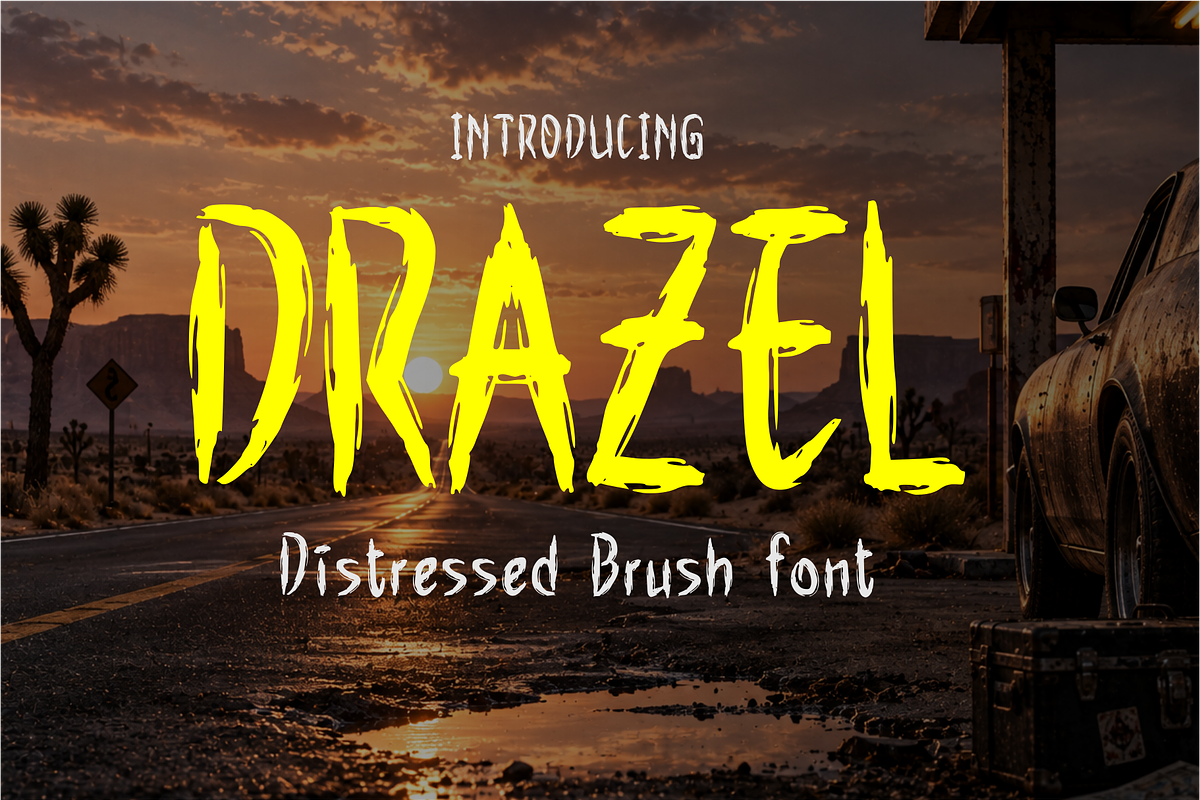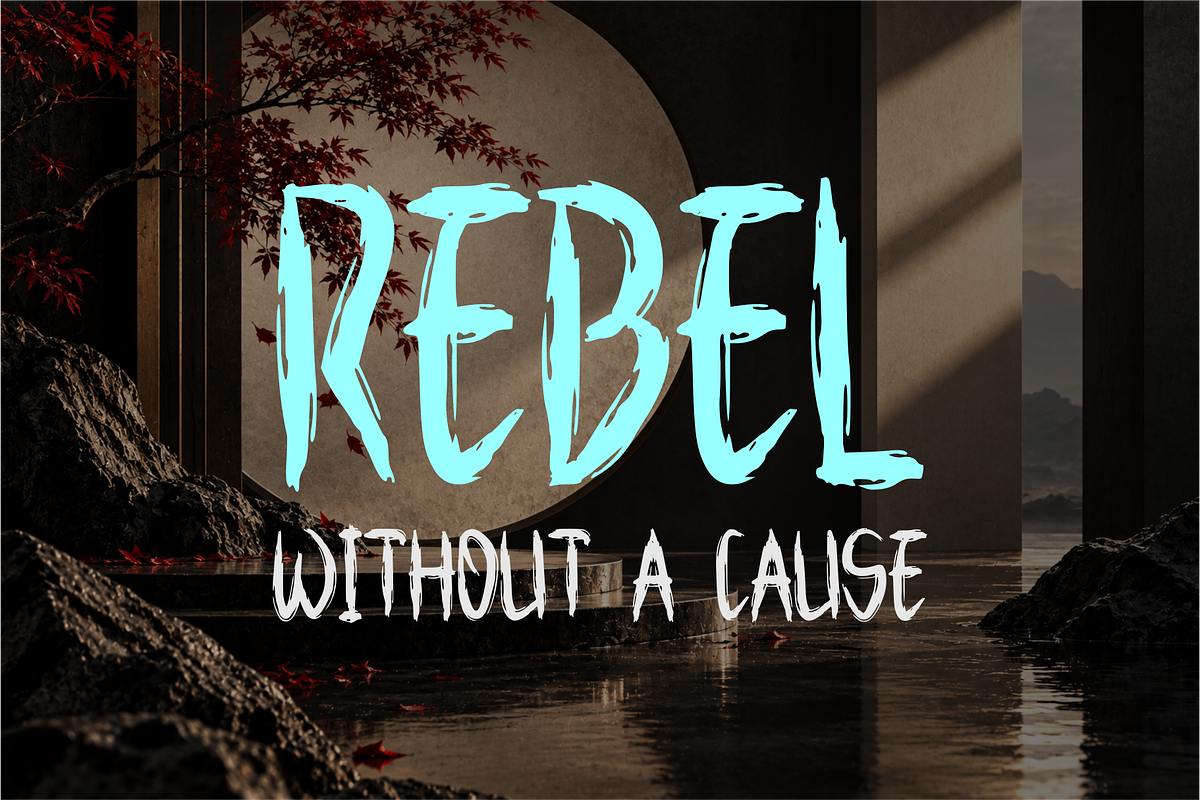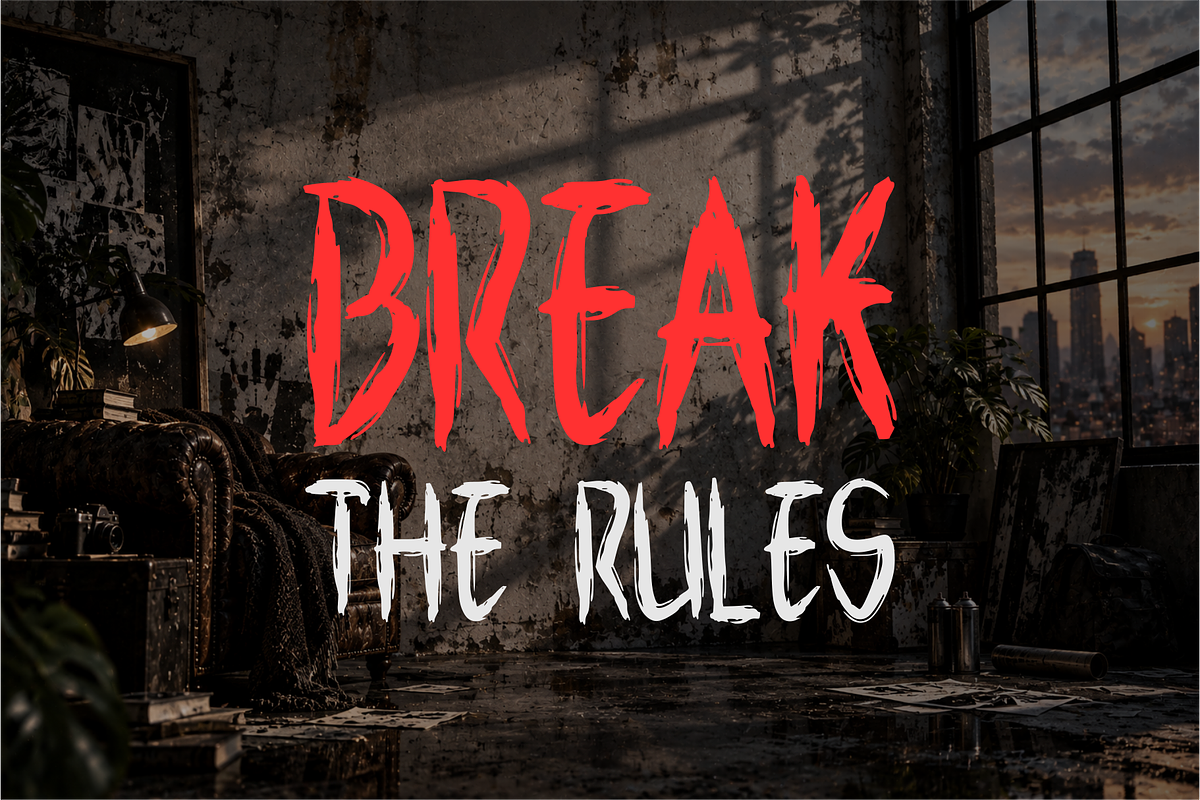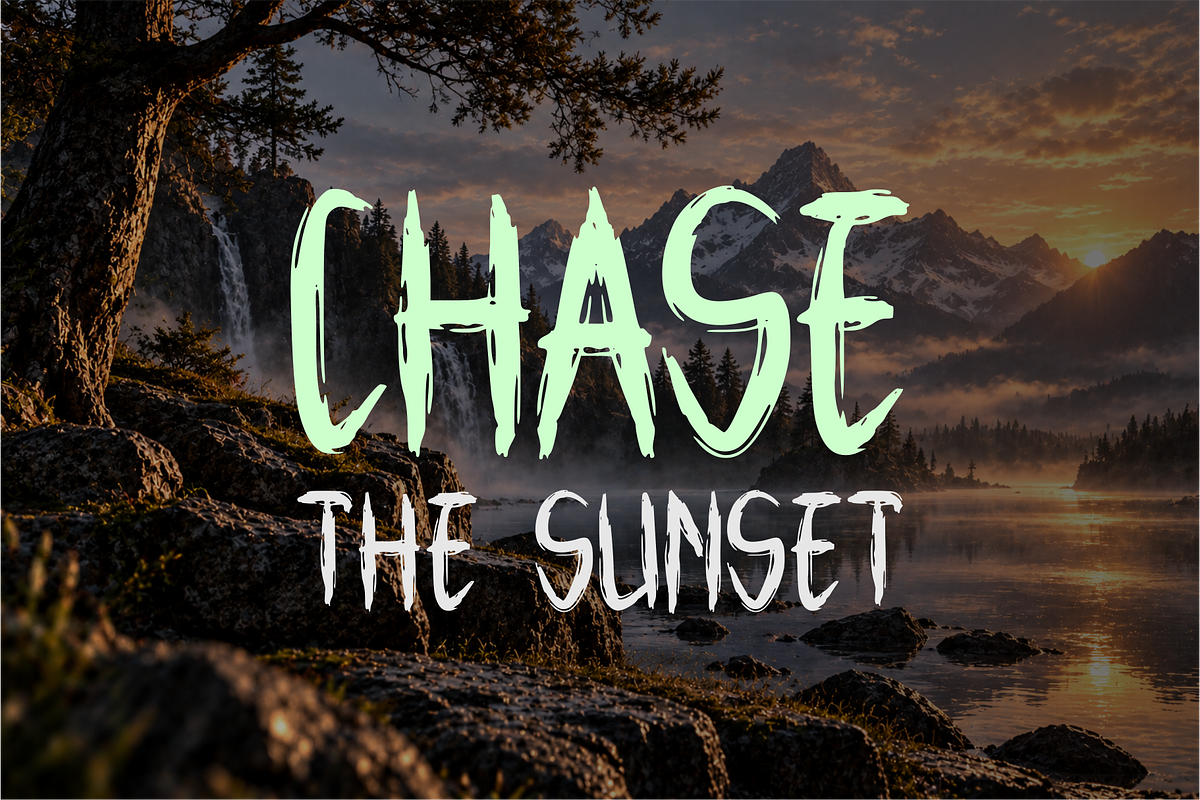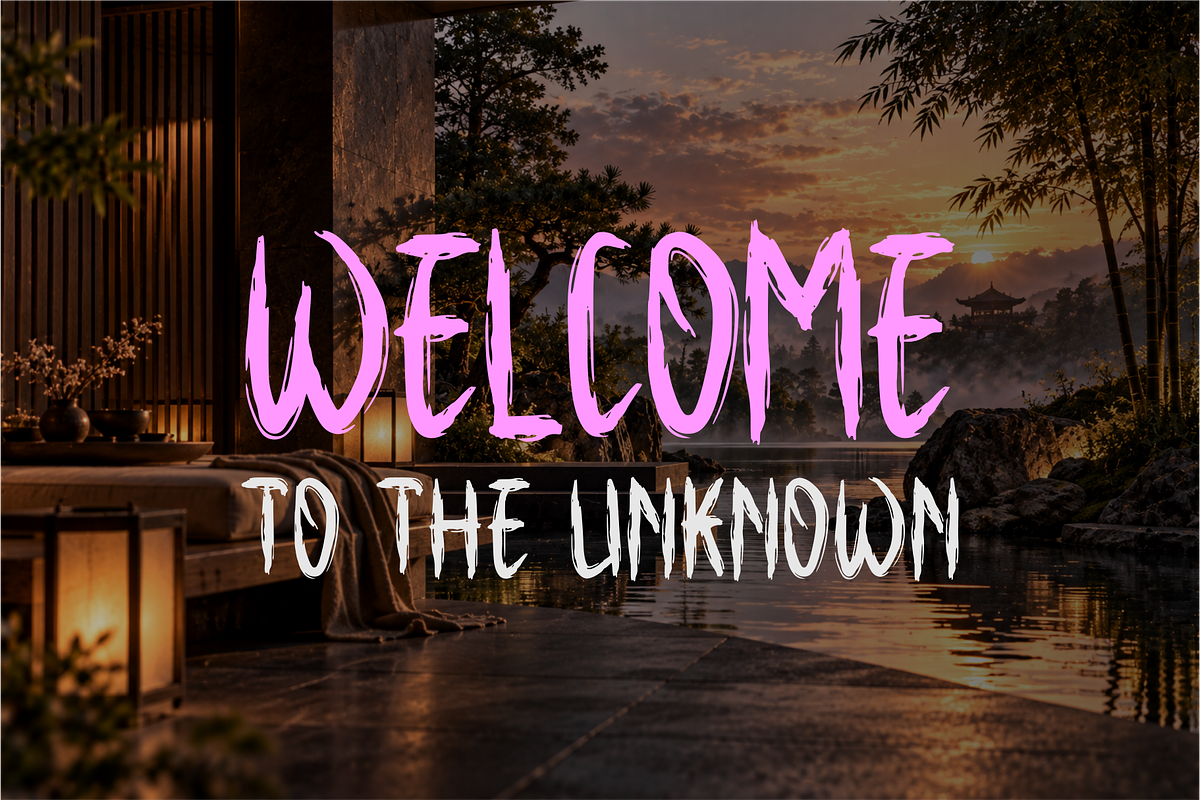
DRAZEL — Distressed Brush Font
DRAZEL is a bold and expressive distressed brush font designed to capture the raw energy of hand-painted lettering. Its rough edges, irregular strokes, and weathered texture create an authentic handmade appearance with a rebellious and adventurous character.
The strong brush forms give DRAZEL a powerful visual impact, making it ideal for designs that need a rugged, energetic, and unconventional aesthetic. It works especially well for streetwear branding, posters, album artwork, adventure graphics, merchandise, vintage-inspired designs, logos, packaging, and editorial headlines.
With its imperfect and aggressive brush style, DRAZEL brings a sense of freedom, movement, rebellion, and raw creativity to every composition. Whether used in large display text or as a distinctive branding element, DRAZEL is made to stand out and give your designs a handcrafted distressed feel.